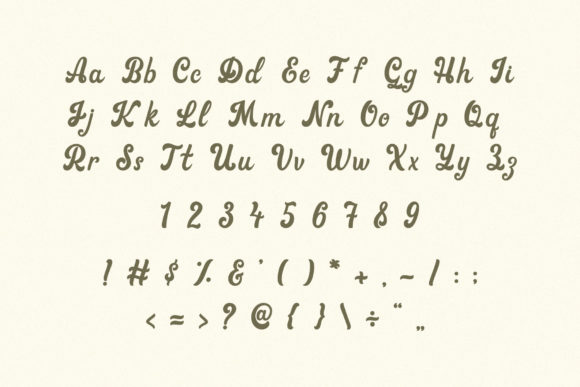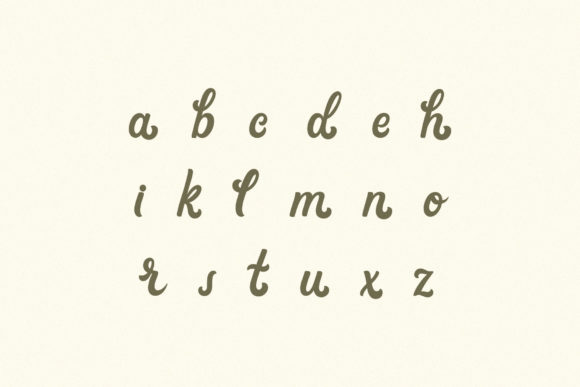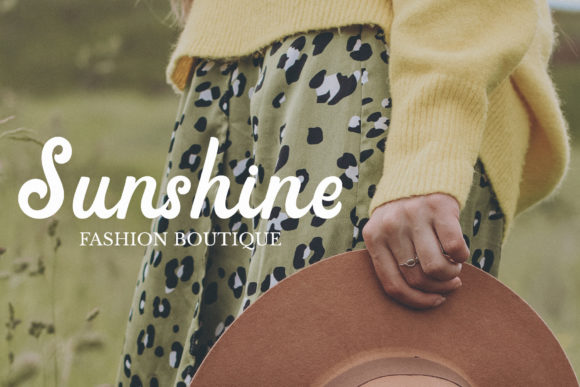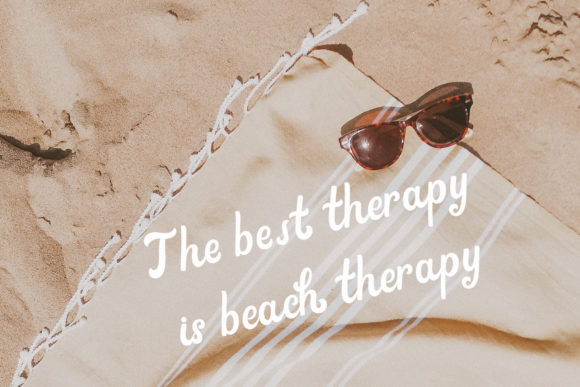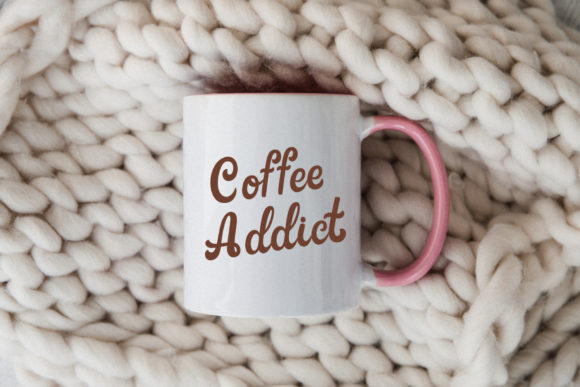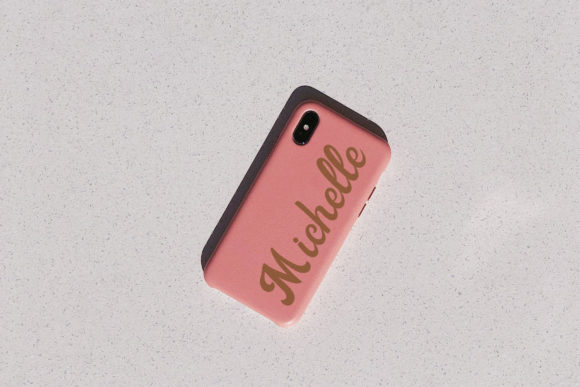
Introduction to Nice Human Font
As designers, we’ve all been there – staring at a blank canvas, waiting for that spark of creativity to ignite. It’s the moment when everything comes together, and your project begins to take shape. But sometimes, all it takes is the right font to elevate your design from ordinary to extraordinary. That’s where Nice Human Font comes in – a stunning display font that adds a touch of sophistication and nostalgia to your creative projects.
With its bold and confident feel, Nice Human Font is the perfect addition to any design resource. Whether you’re working on a high-quality logo or a free download project, this font is sure to make a lasting impression. And with its transparent background option, you can easily layer it over other design elements to create a unique and eye-catching visual effect.
As a valuable design resource, Nice Human Font offers endless possibilities for creative expression. Its dynamic and strong personality makes it an ideal choice for designers looking to add a stylish touch to their projects.
Key Features of Nice Human Font
- High-Quality Design Resource: Nice Human Font is a premium design resource suitable for any creative project, offering a unique and stylish touch.
- Transparent Background: Nice Human Font features a transparent background, allowing for seamless integration with any design element.
- High Resolution: Nice Human Font is designed at 300 DPI, making it suitable for high-resolution printing and digital applications.
- Unique Characteristics: This font features a distinctive and modern design, with unique characteristics that set it apart from other fonts in its class.
- Perfect for Digital and Print Projects: Nice Human Font is ideal for both digital and print projects, making it a versatile design resource for any creative project.
Honest Review: Nice Human Font
I recently stumbled upon the Nice Human Font while searching for free download design resources for my creative project. The first thing that caught my eye was the font’s unique and modern aesthetic, which would be perfect for a variety of design applications.
Overall, I think the Nice Human Font is a solid design resource that can add a touch of modernity to any creative project. While it may not be perfect for every design need, it’s definitely worth considering for projects that require a clean and modern aesthetic.
- Perfect for creative projects that require a modern and clean design aesthetic
- Wide range of glyphs and characters to support various languages and writing systems
Nice Human Font
Getting the Most Out of Nice Human Font
For optimal results, use Nice Human Font in combination with other high-quality design resources. Experiment with different font sizes, colors, and layouts to create unique and eye-catching designs.
Nice Human Font is perfect for a variety of creative projects, including: